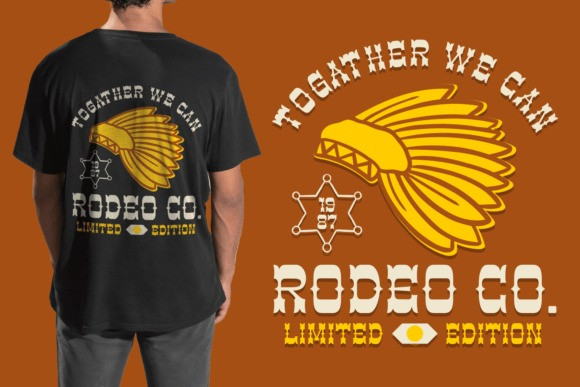
Ranger Eastwood Font
Ranger Eastwood is a retro and western-looking display font. This bold, unique, and vintage font can easily become your favorite. It can be used for books, magazine covers, social media posts, invitations, and so much more! So add this to your creations and take your designs to the next level! Ranger Eastwood is also PUA encoded which means you can access all the glyphs with ease!